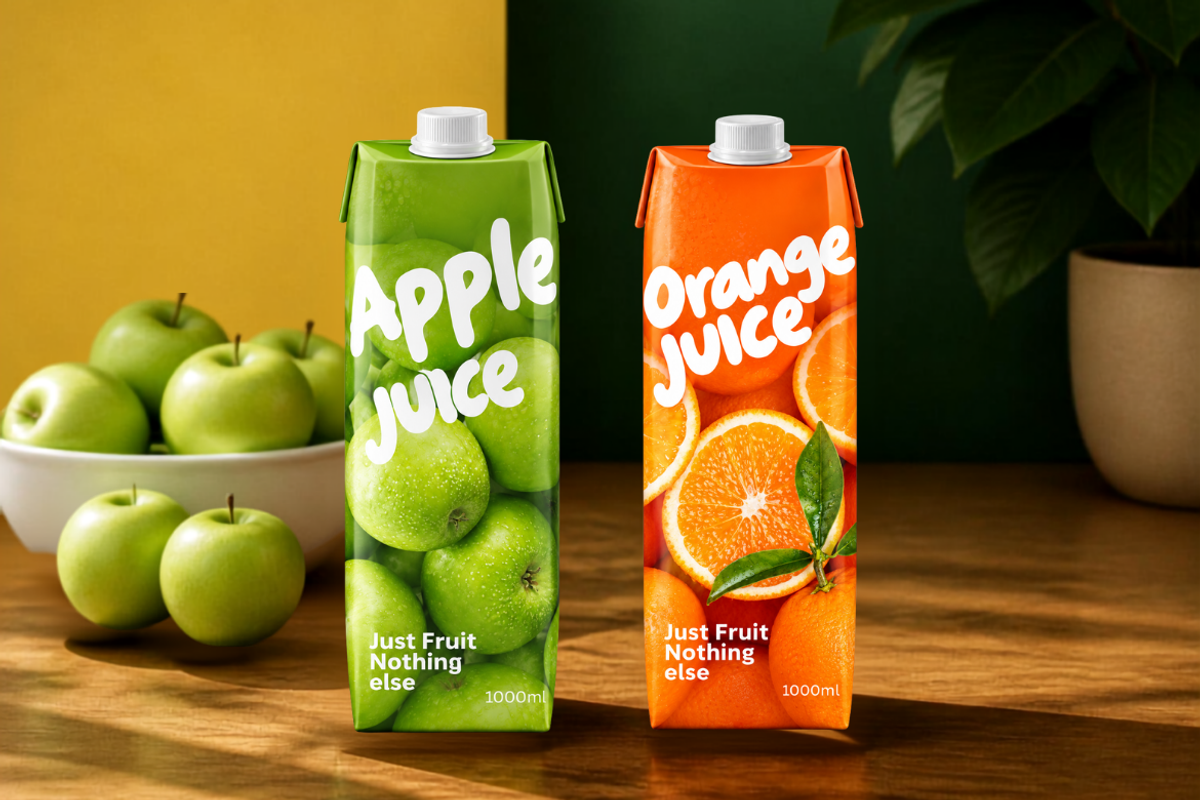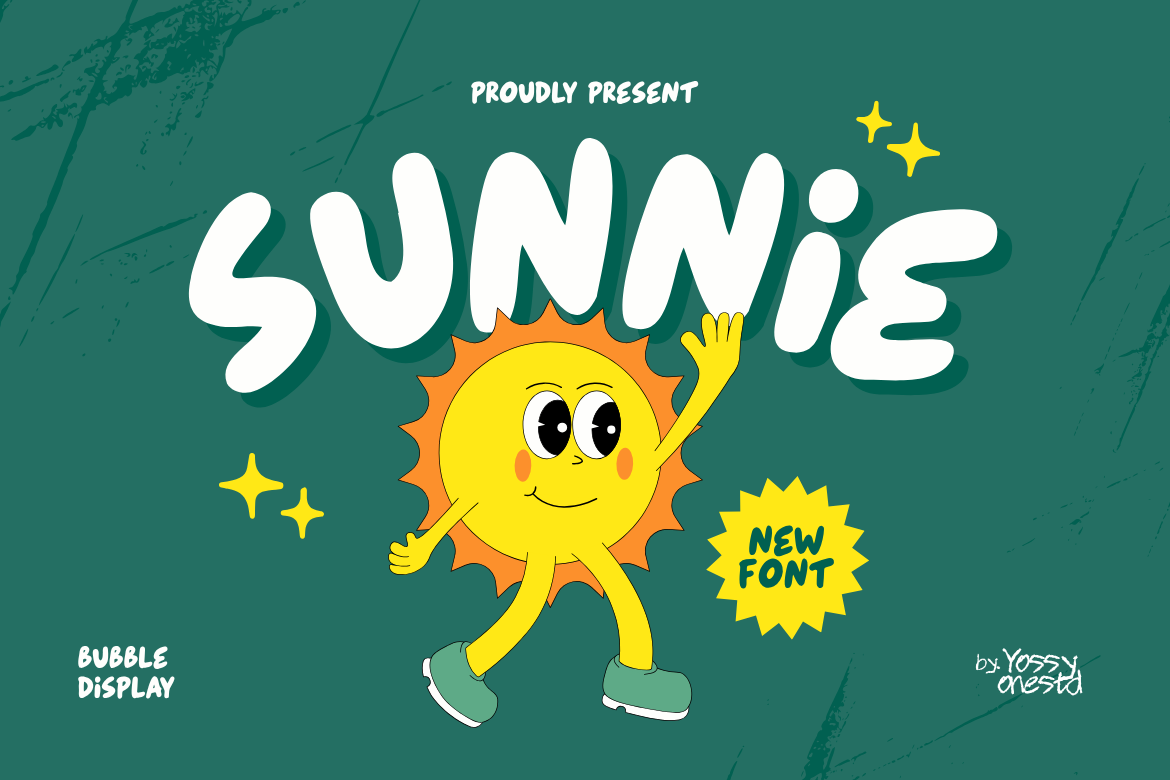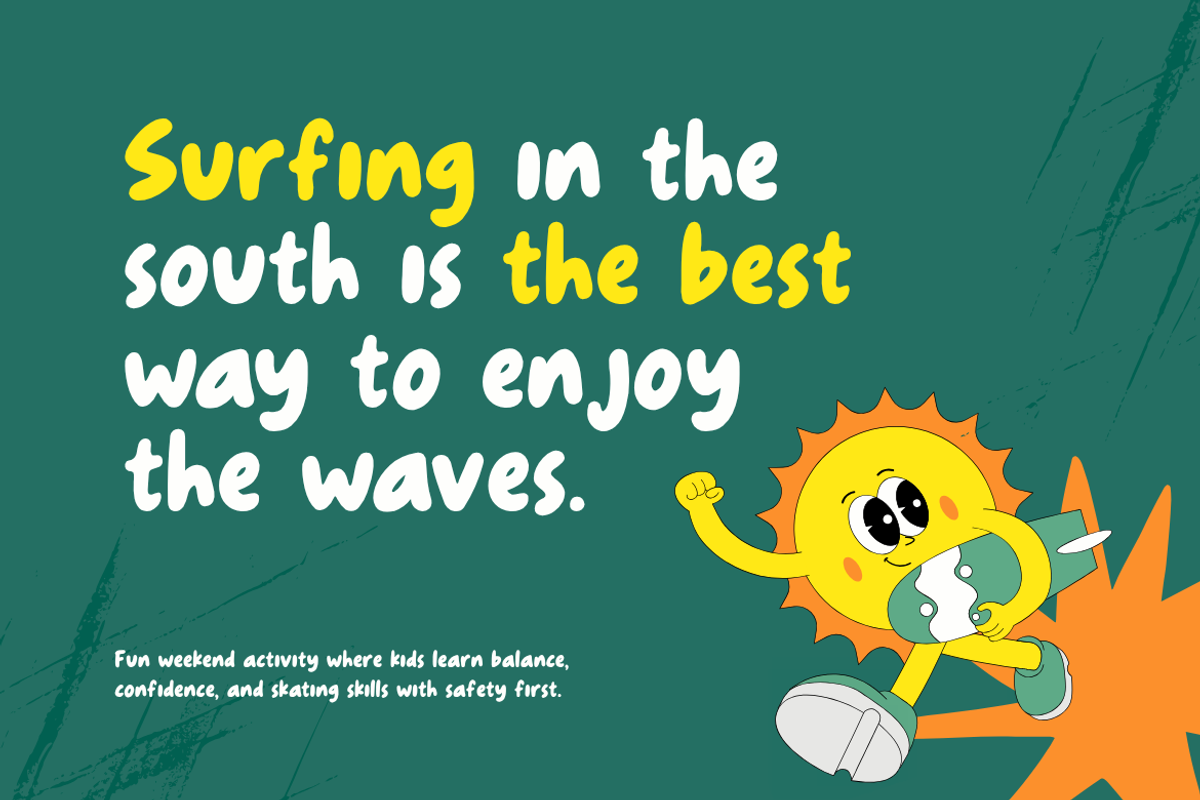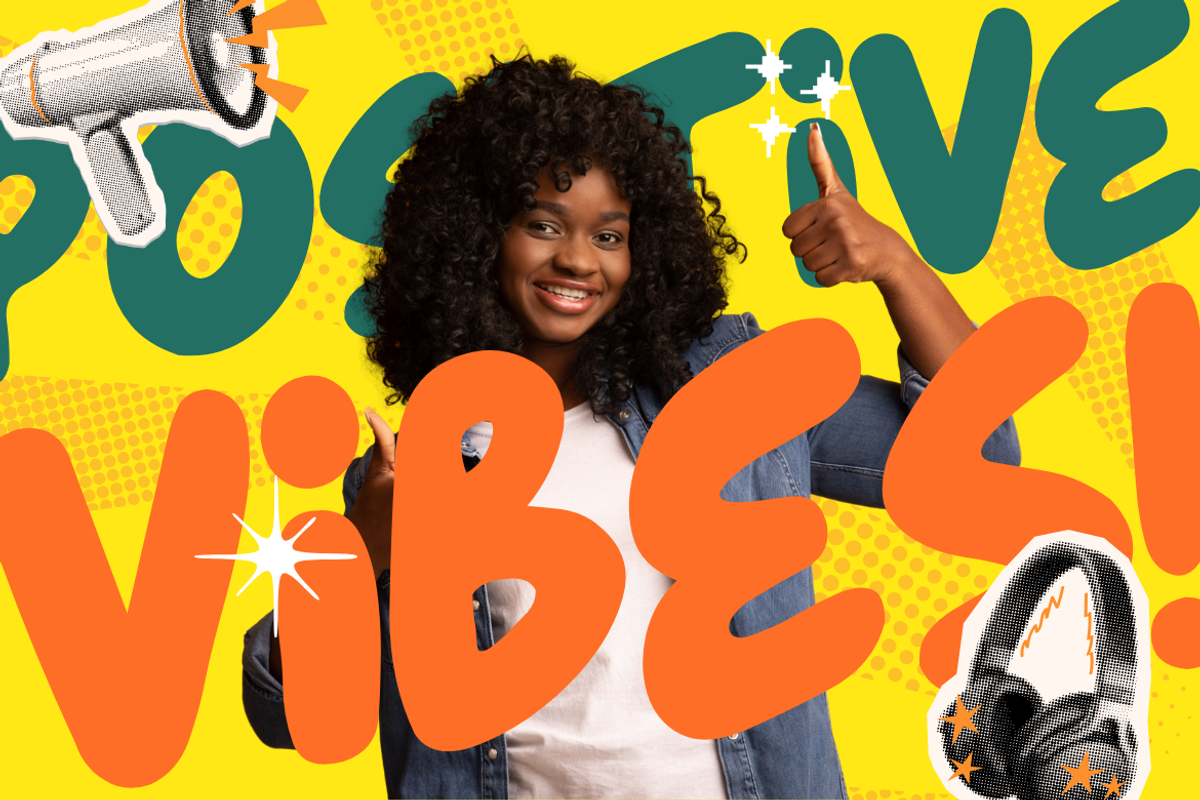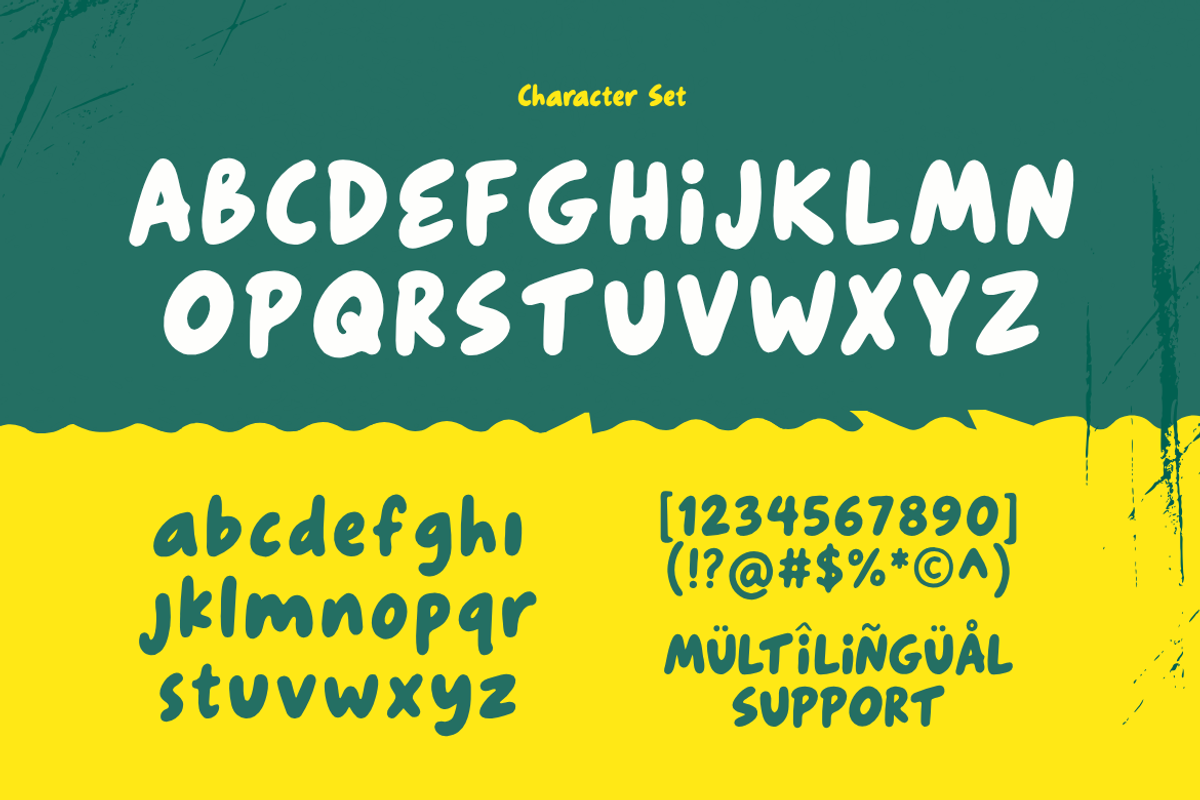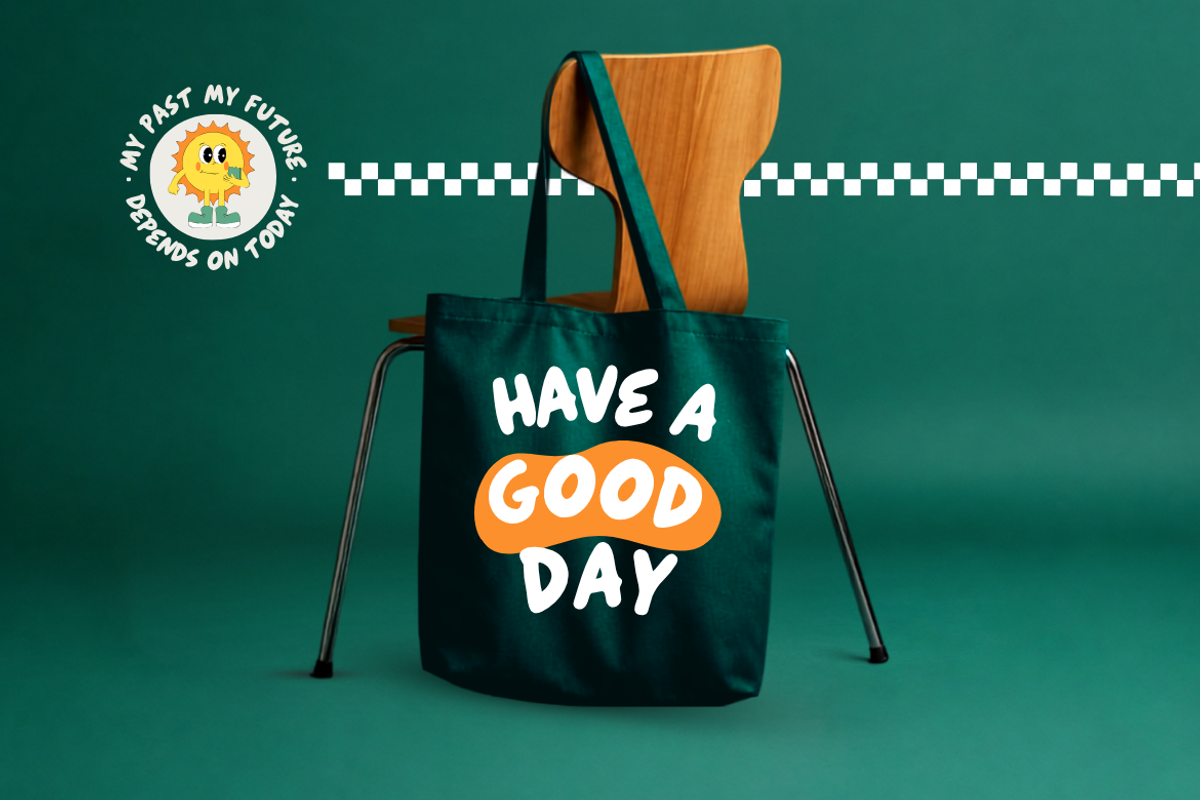
Sunnie - Playful Bubble Display Font
Sunnie is a playful bubble display font with chunky rounded forms, soft curves, and an energetic handmade character.
Designed with an organic and slightly irregular construction, Sunnie gives every letter a friendly, expressive personality while maintaining strong readability at display sizes. Its bold and bubbly silhouette works especially well for branding, packaging, posters, children's designs, social media graphics, stickers, apparel, and cheerful editorial projects.
The rounded letterforms create a youthful and approachable visual language, while the expressive proportions give Sunnie enough personality to stand out in headlines and short phrases. Sunnie is made for designs that need to feel bold, casual, colorful, and full of character.
Big, bubbly letters made to bring playful energy to every design.